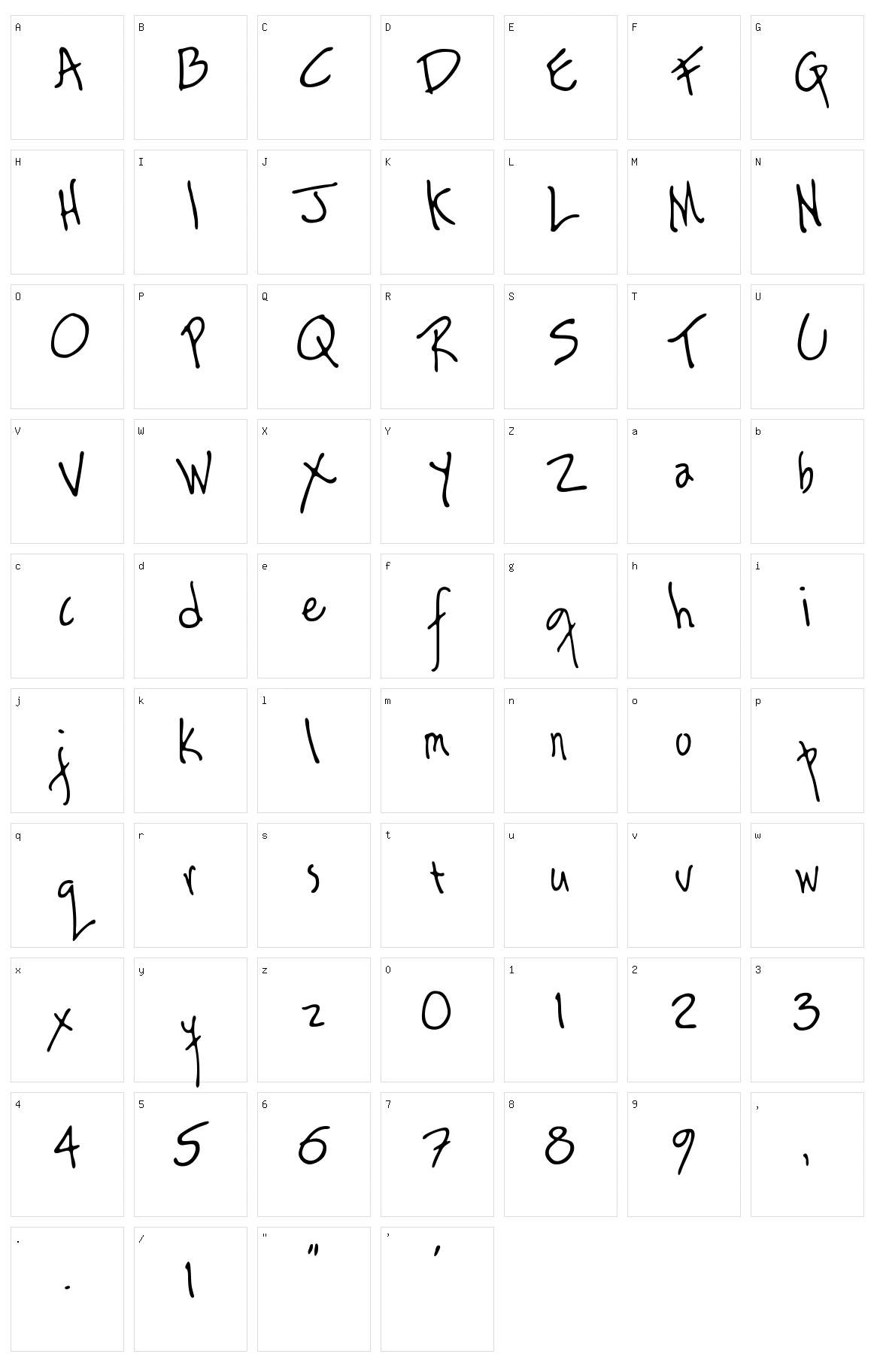
Fonts are cool. If you like fonts, you've probably thought at one time or
another, "I wish I could design a font". That's how this page came about.
These are fonts I've designed.
I started designing some simple fonts in Corel Draw 3, years ago, but it was
too much like hard work. It's an excellent program, it's just not a font
designer.
The later fonts are designed with Softy, the only Shareware TrueType font
designer I know of. It's a bit basic, but it's an excellent piece of
shareware, and can produce some excellent results if you're persistent.